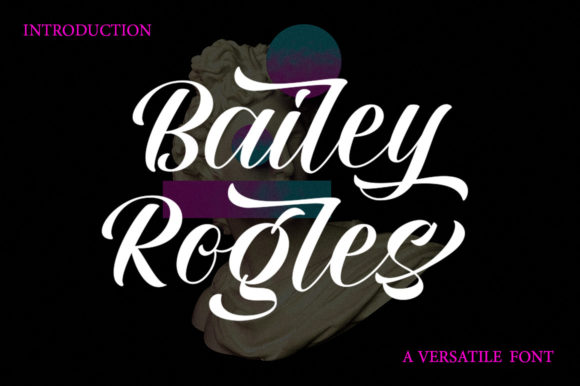
Unleash the artistry of Bailey Rogles, a mesmerizing script font family that captures the beauty of handwritten charm. Dive into a world of creative possibilities with Bailey Rogles, the ultimate font for expressing yourself.
With its graceful curves and elegant strokes, Bailey Rogles dances across your designs, leaving a trail of sophistication and timeless elegance. This font is a true masterpiece, crafted with meticulous attention to detail, ensuring that each letter is a work of art.
Step into a realm of limitless creativity with Bailey Rogles. Its versatility knows no bounds, making it the perfect choice for wedding invitations, thank-you cards, quotes, greeting cards, logos, and business cards. Its enchanting touch adds a personal touch to every project, making your designs stand out from the crowd.
Bailey Rogles is more than just a font; it's an invitation to express your individuality. Its captivating style adds a touch of magic to your designs, transforming them into captivating masterpieces. Whether you're a professional designer or simply someone with a passion for creativity, Bailey Rogles will ignite your imagination and elevate your projects to new heights.
Don't settle for ordinary fonts that blend in with the crowd. Embrace the uniqueness of Bailey Rogles and embark on a journey of creative expression. Let your designs bloom with beauty and grace, capturing the essence of your vision with every stroke.
With Bailey Rogles, the possibilities are endless. Explore a world of endless creativity and make your designs shine with an unforgettable charm. Download Bailey Rogles today and let your imagination soar!